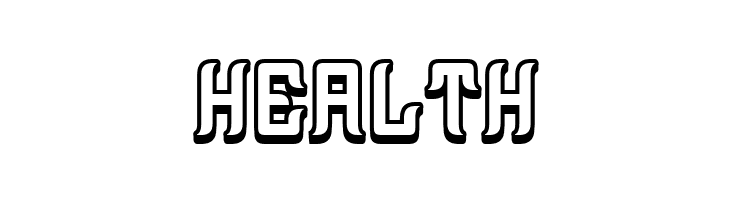
( Vladimir Nikolic - www.coroflot.com/vladimirnikolic )
A bold, 3D font with a geometric, blocky style and strong outlines.
( Vladimir Nikolic - www.coroflot.com/vladimirnikolic )
A bold, 3D geometric font with a modern, impactful style.
( Vladimir Nikolic - www.coroflot.com/vladimirnikolic )
A bold, 3D, italic font with a modern and impactful design.
( Vladimir Nikolic - www.coroflot.com/vladimirnikolic )
A bold, 3D decorative font with a flat, filled style.
( Vladimir Nikolic - www.coroflot.com/vladimirnikolic )
A bold, 3D decorative font with a striped pattern and strong visual impact.
( Vladimir Nikolic - www.coroflot.com/vladimirnikolic )
A bold, 3D font with a dotted pattern and geometric structure.
( Vladimir Nikolic - www.coroflot.com/vladimirnikolic )
A bold, playful 3D font with rounded characters and a consistent stroke width.
( Vladimir Nikolic - www.coroflot.com/vladimirnikolic )
A bold, 3D-filled italic font with a futuristic and dynamic style.
( Vladimir Nikolic - www.coroflot.com/vladimirnikolic )
A bold, italicized font with a three-dimensional outlined style.
( Vladimir Nikolic - www.coroflot.com/vladimirnikolic )
A bold, decorative font with a 3D shadow effect and geometric design.